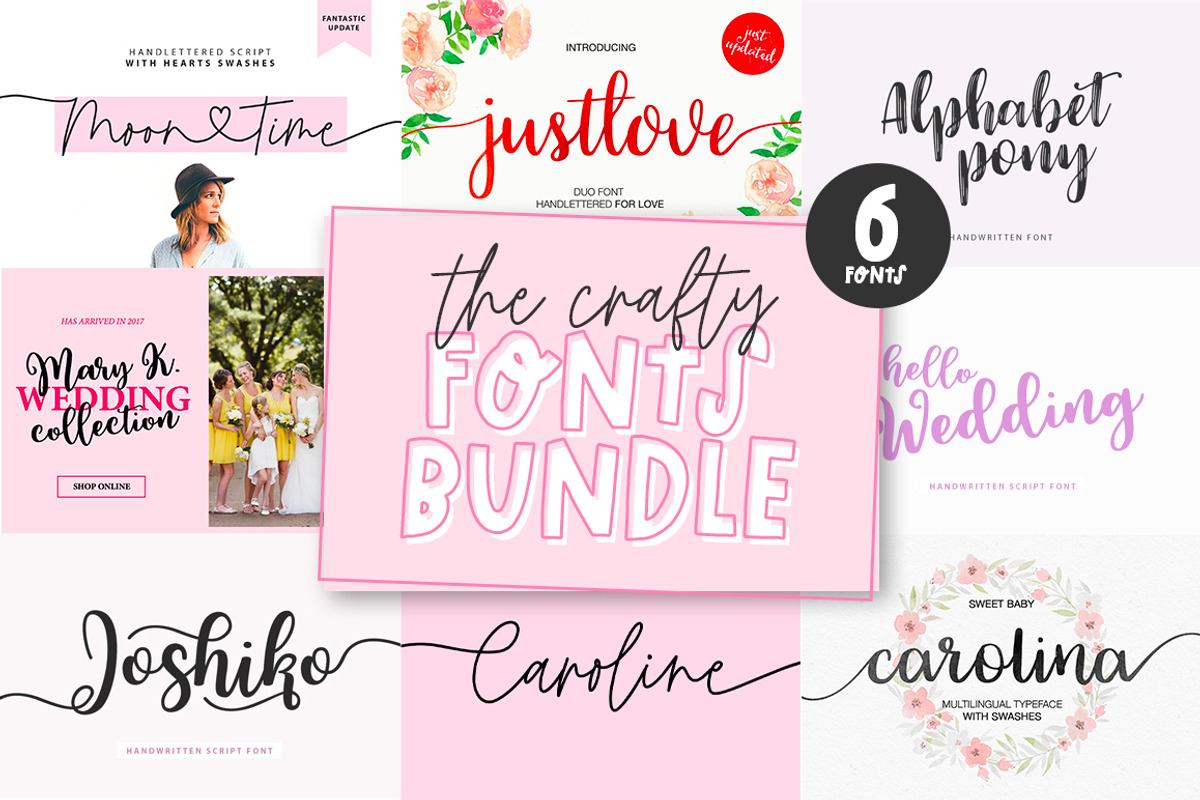
6 in 1 Crafty Fonts Bundle Free Download is a playful and creative collection of hand-drawn fonts perfect for crafters, DIY projects, and handmade branding. Please note: you must purchase this font for commercial use, but you can test it through a free download. Featuring six unique fonts with quirky charm and friendly vibes, this bundle is ideal for greeting cards, planners, stickers, T-shirts, labels, and kid-friendly designs.
Each font in the collection brings its own fun personality—making it easy to mix and match for endless creative combinations. Whether you're designing for your Etsy shop or creating content for social media, 6 in 1 Crafty Fonts Bundle Free Download gives your work a cheerful, handcrafted feel. Fully compatible with Adobe Illustrator, Photoshop, Canva, and more. Download it today for personal use and bring your crafts to life with this fun-loving font bundle!